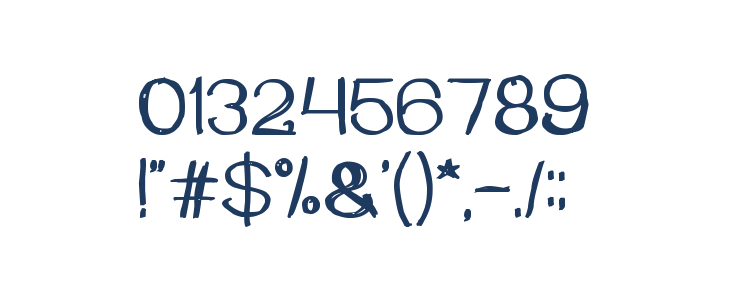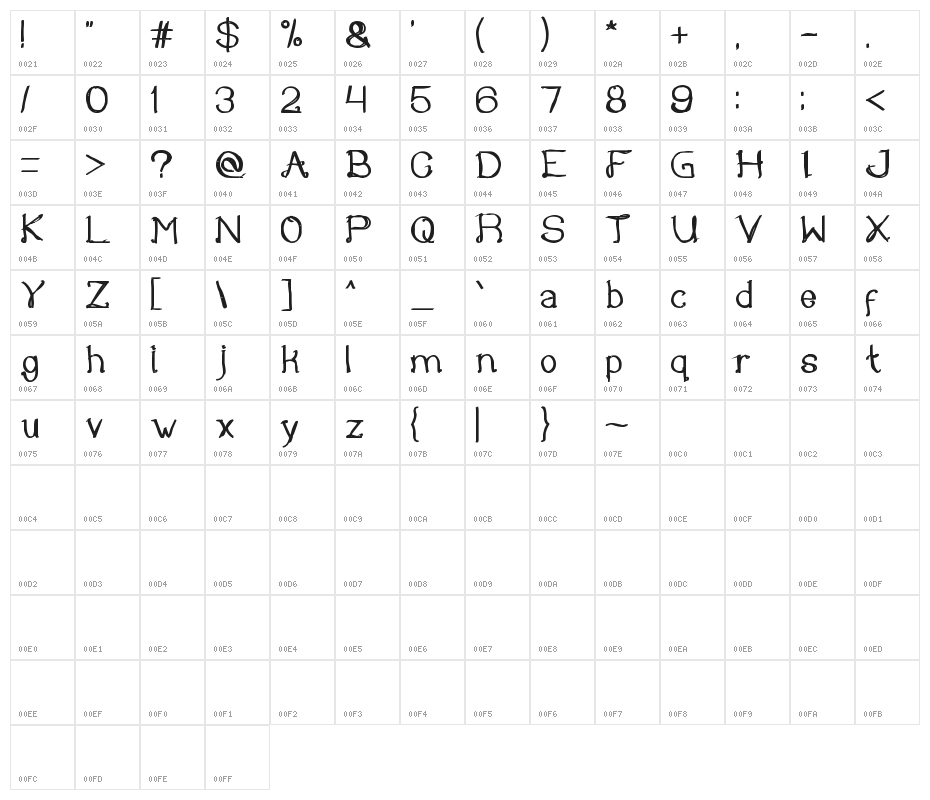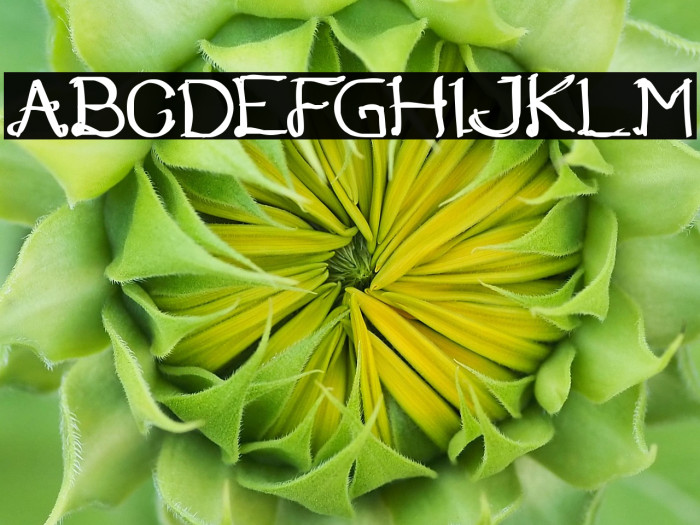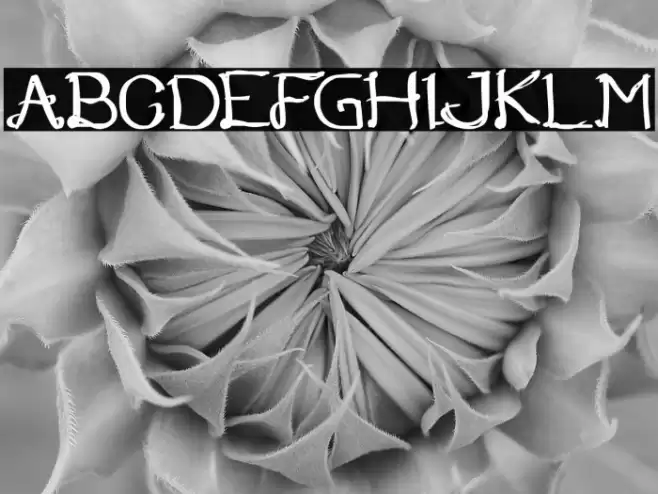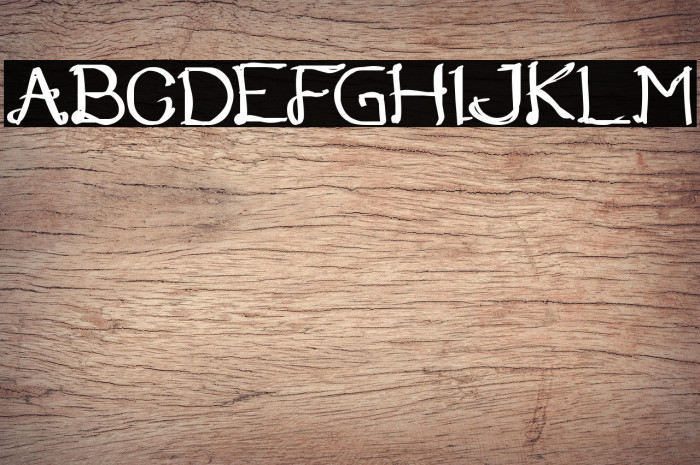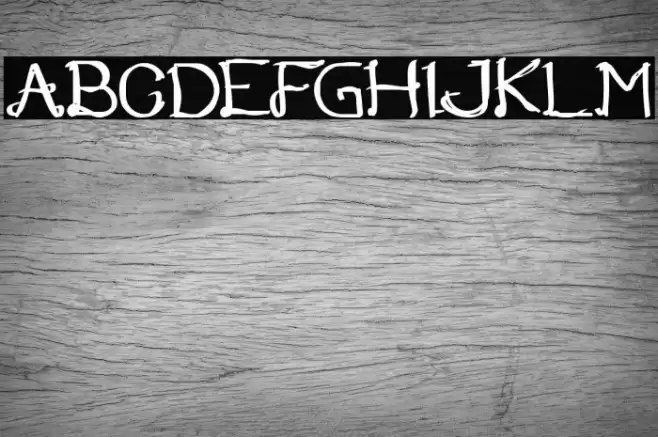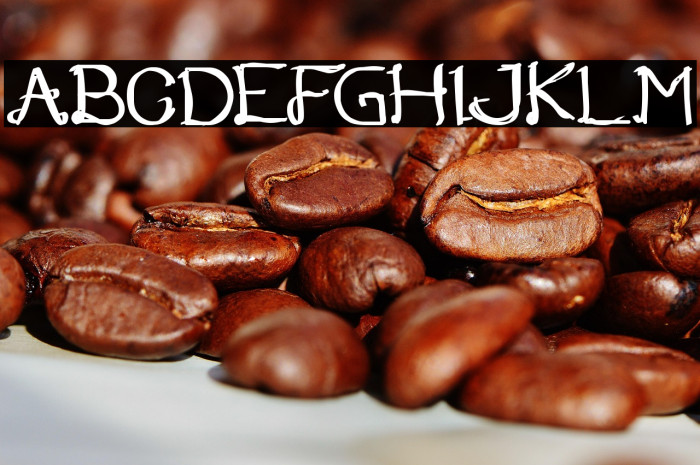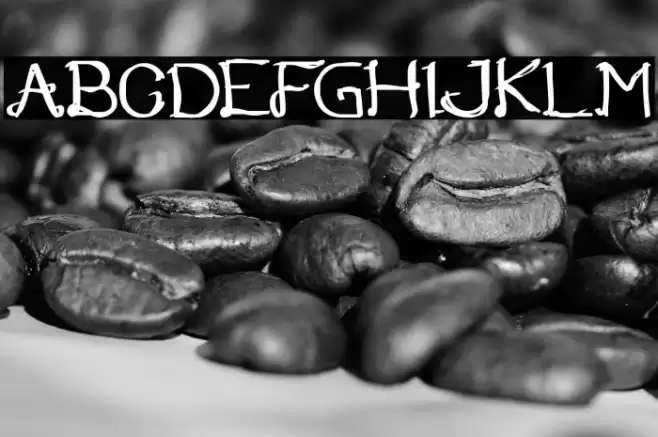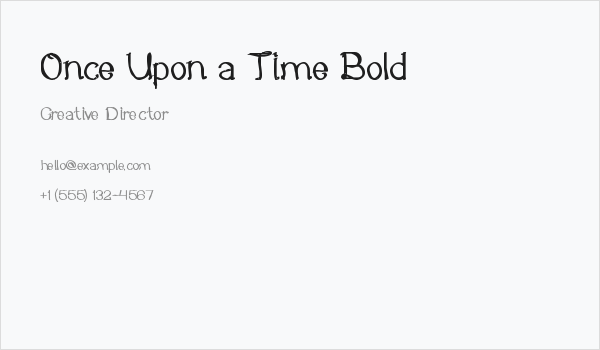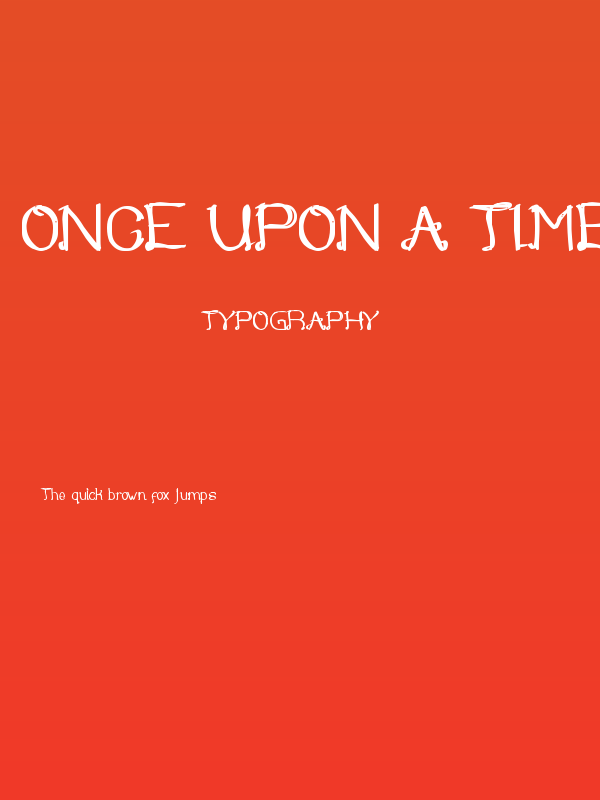
Once Upon a Time Bold Font
Once Upon a Time Bold Description
This font features a whimsical and playful design, characterized by its irregular and hand-drawn appearance. The letters have a unique, storybook-like quality, with varying stroke thicknesses and slightly exaggerated serifs and curves. The uppercase and lowercase letters maintain a consistent style, while the numerals and special characters complement the overall aesthetic. This font exudes a sense of creativity and imagination, making it suitable for projects that require a touch of fantasy or childlike wonder.
| Overall Style | Whimsical, Playful, Storybook |
| Use Case | Headlines, Logos, Decorative text |
| Proposed Projects | Ideal for children's books, fantasy-themed designs, greeting cards, and playful branding projects. |